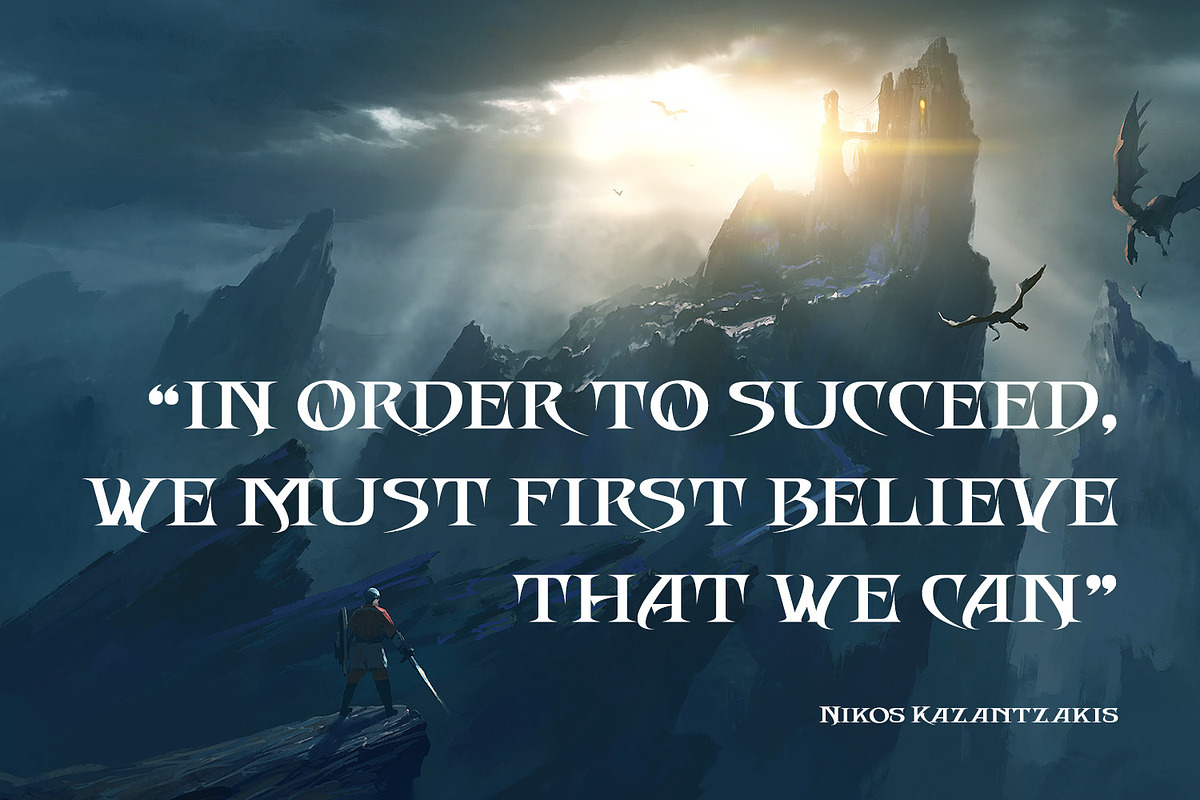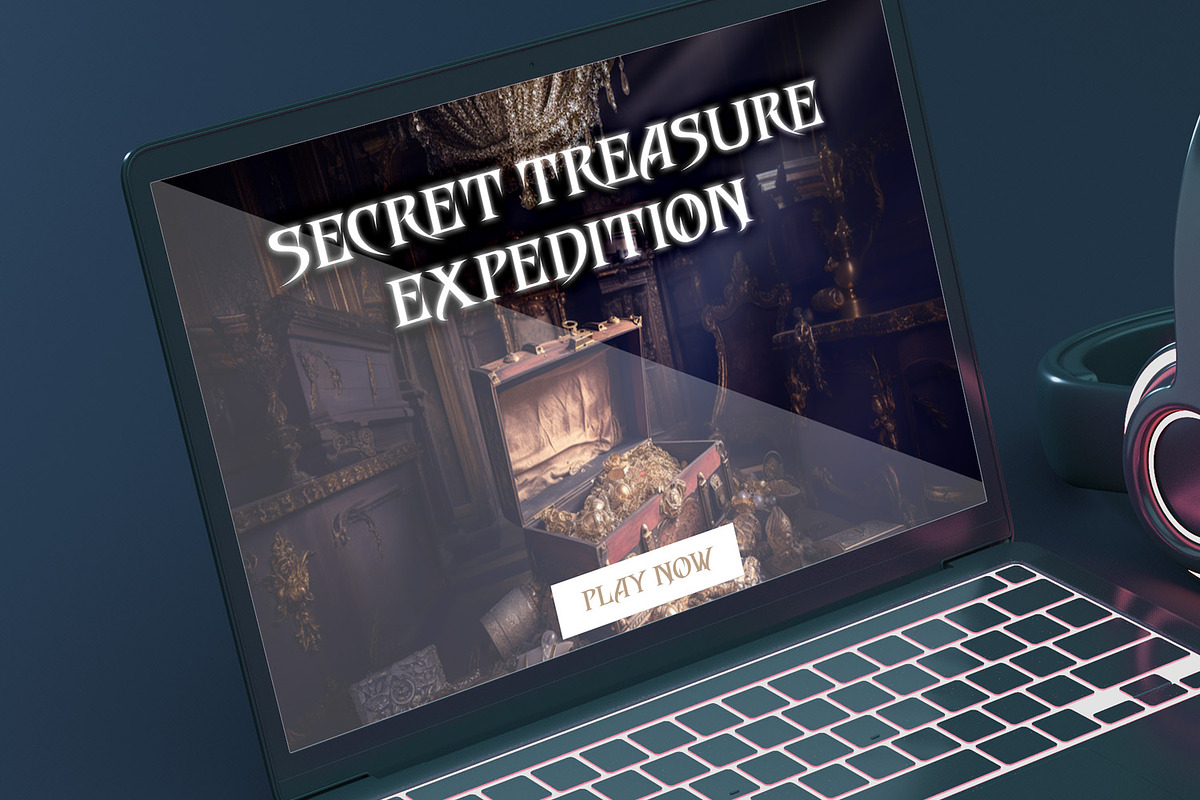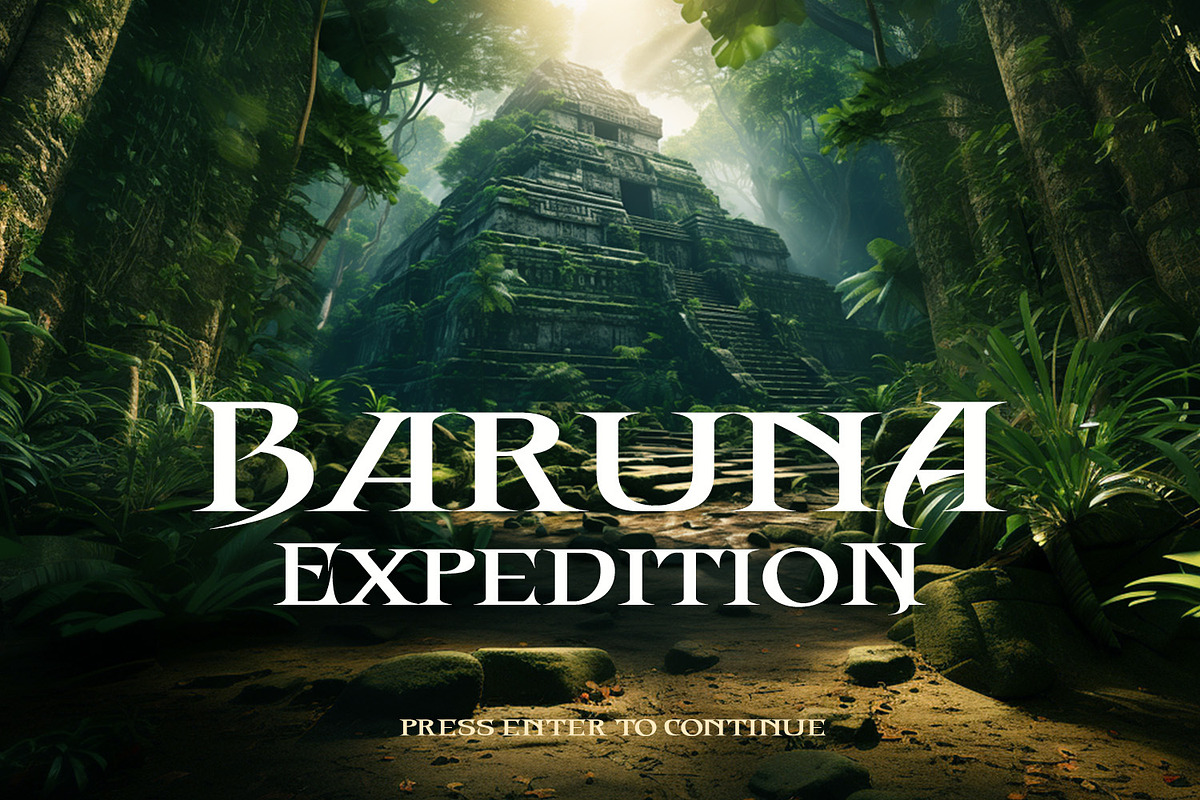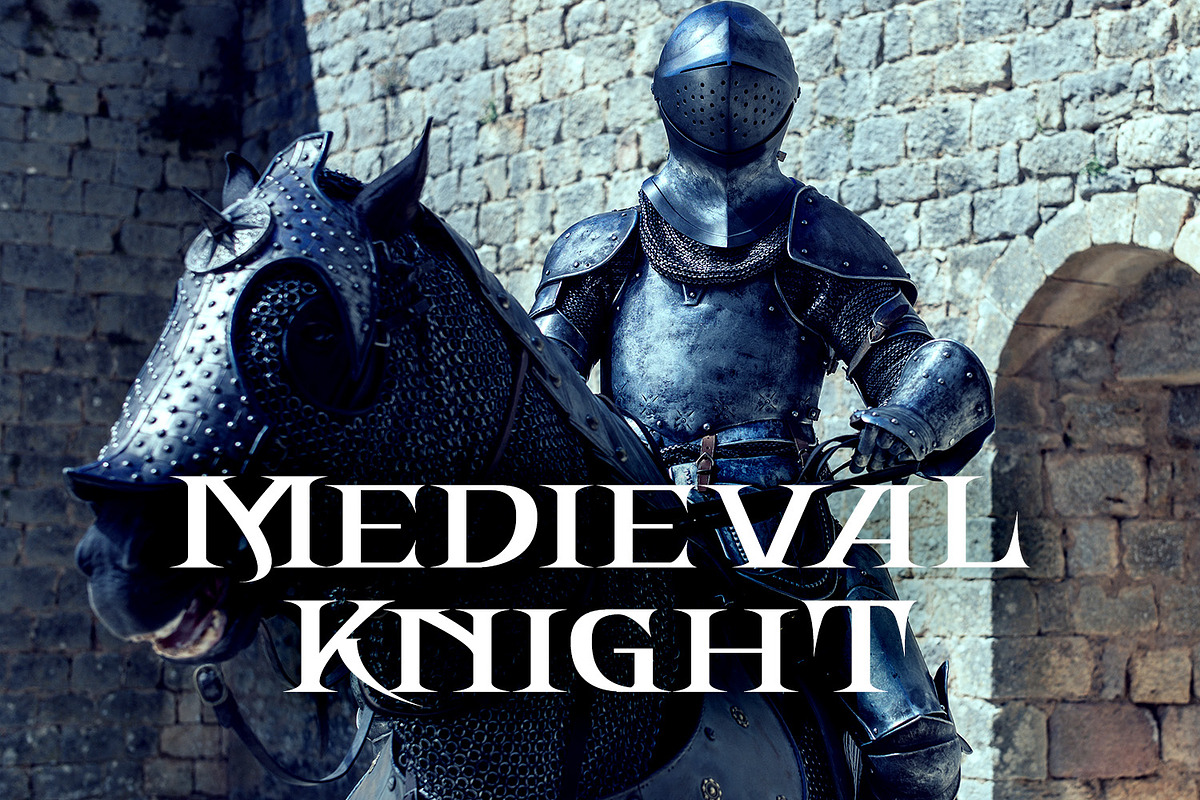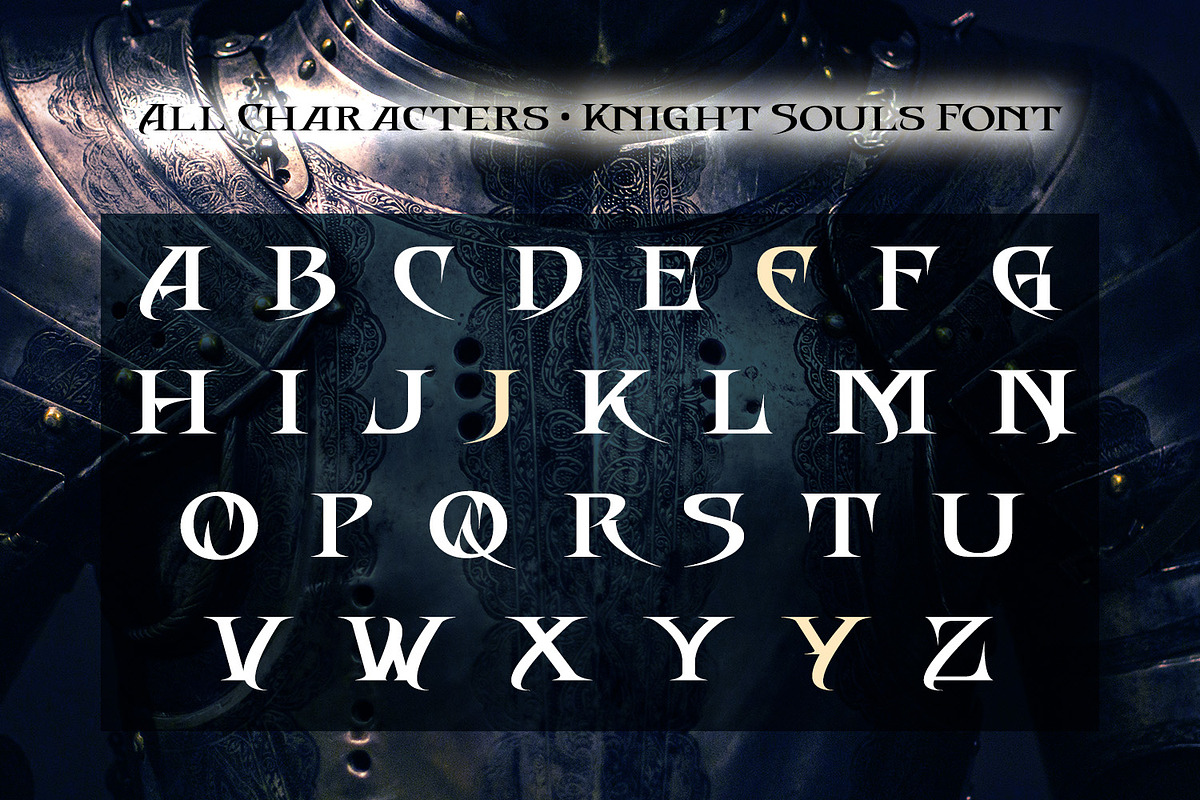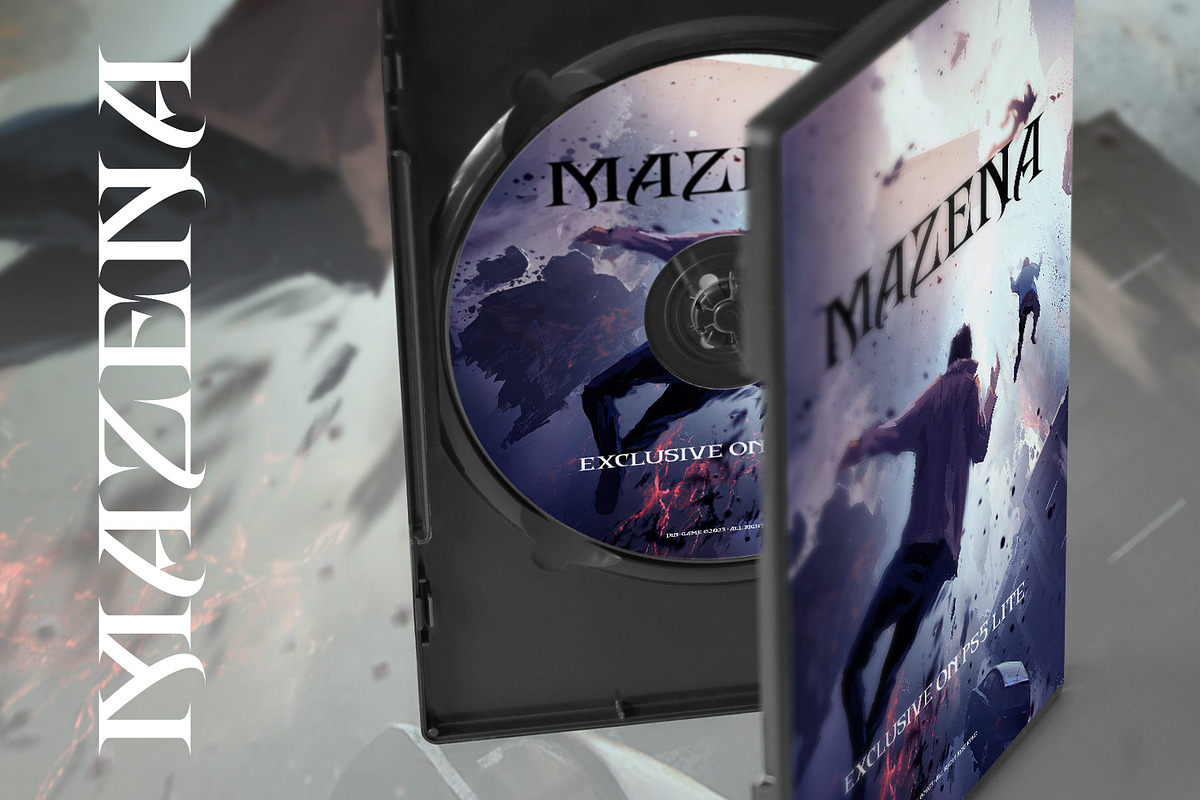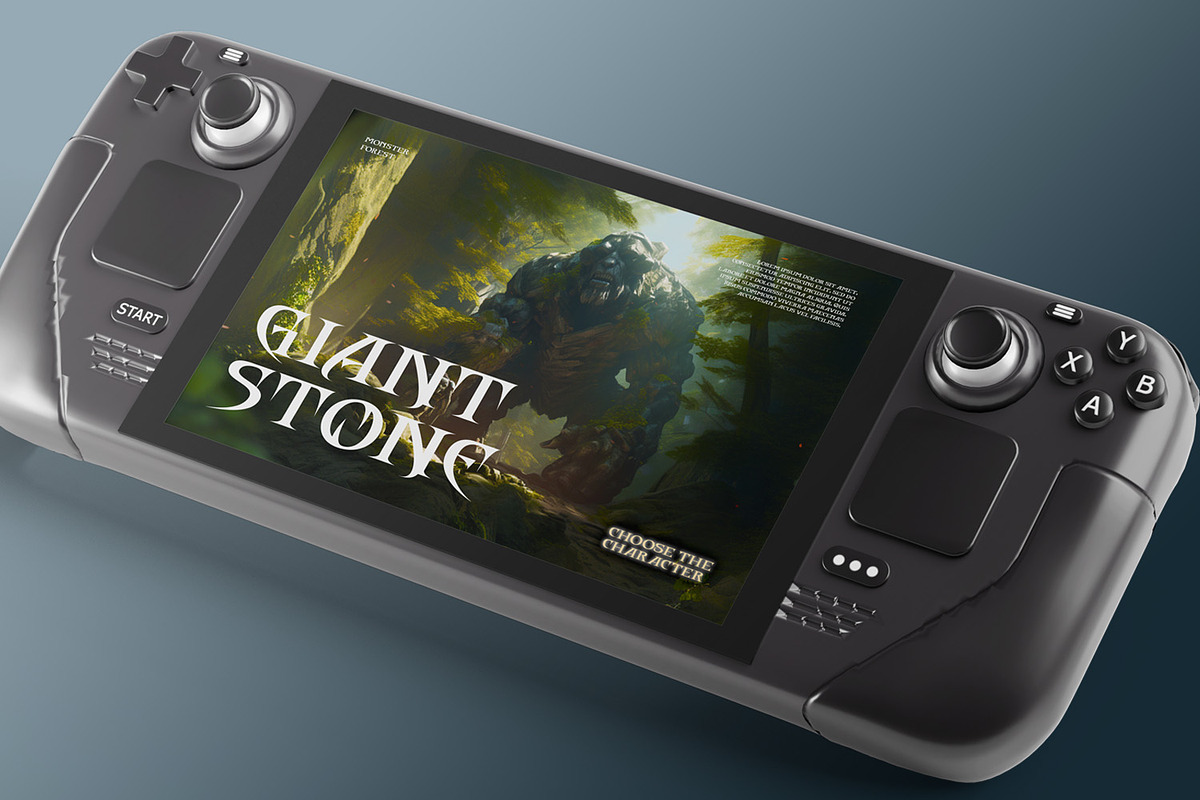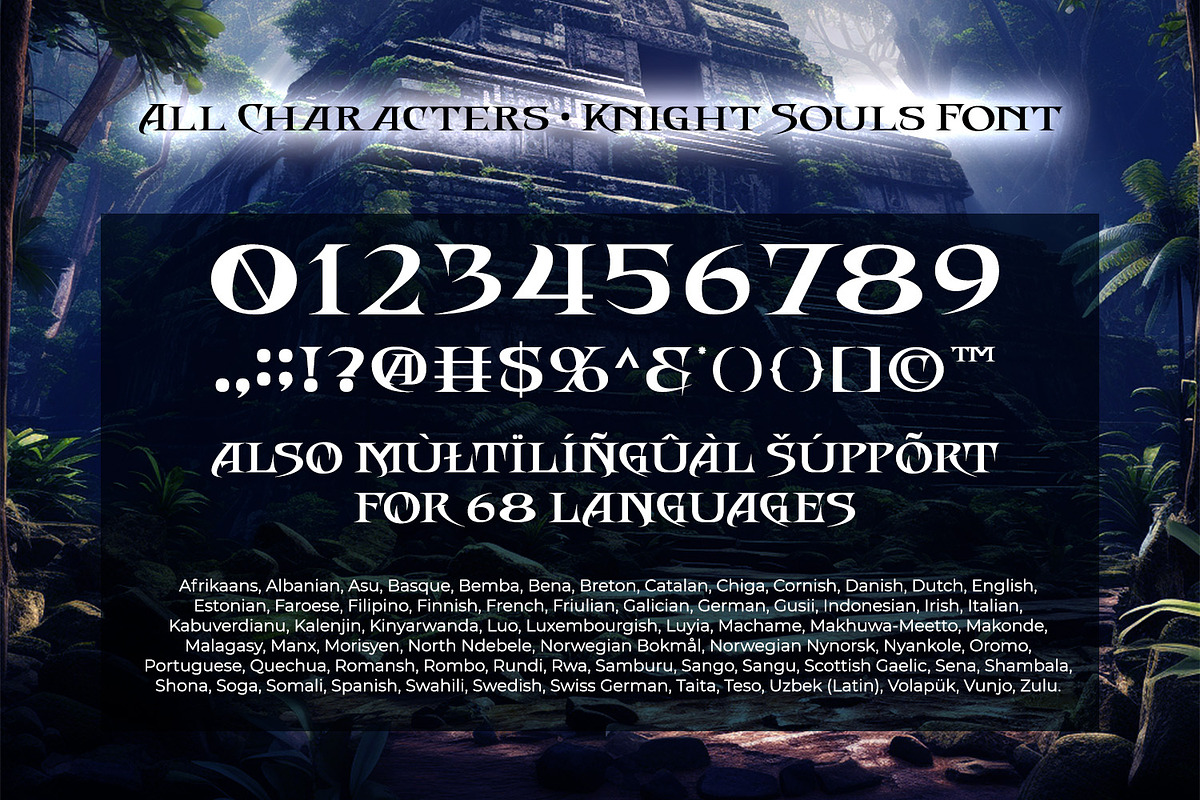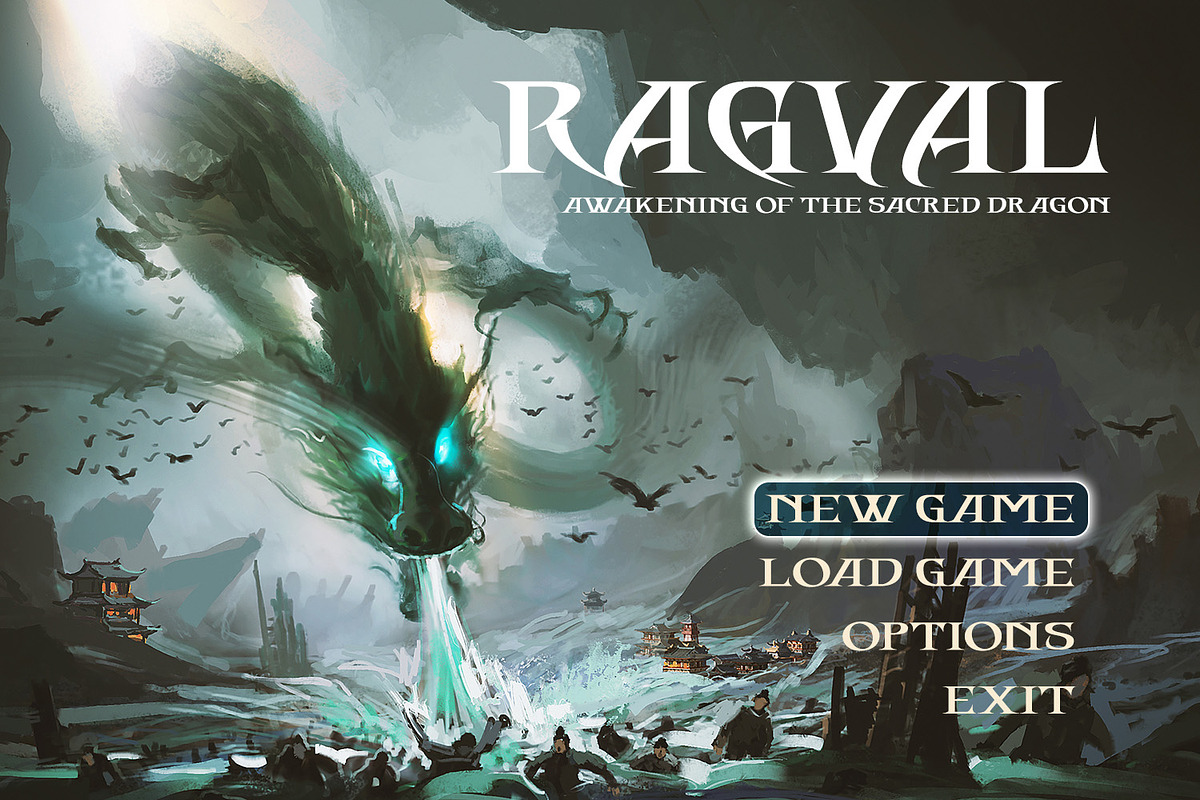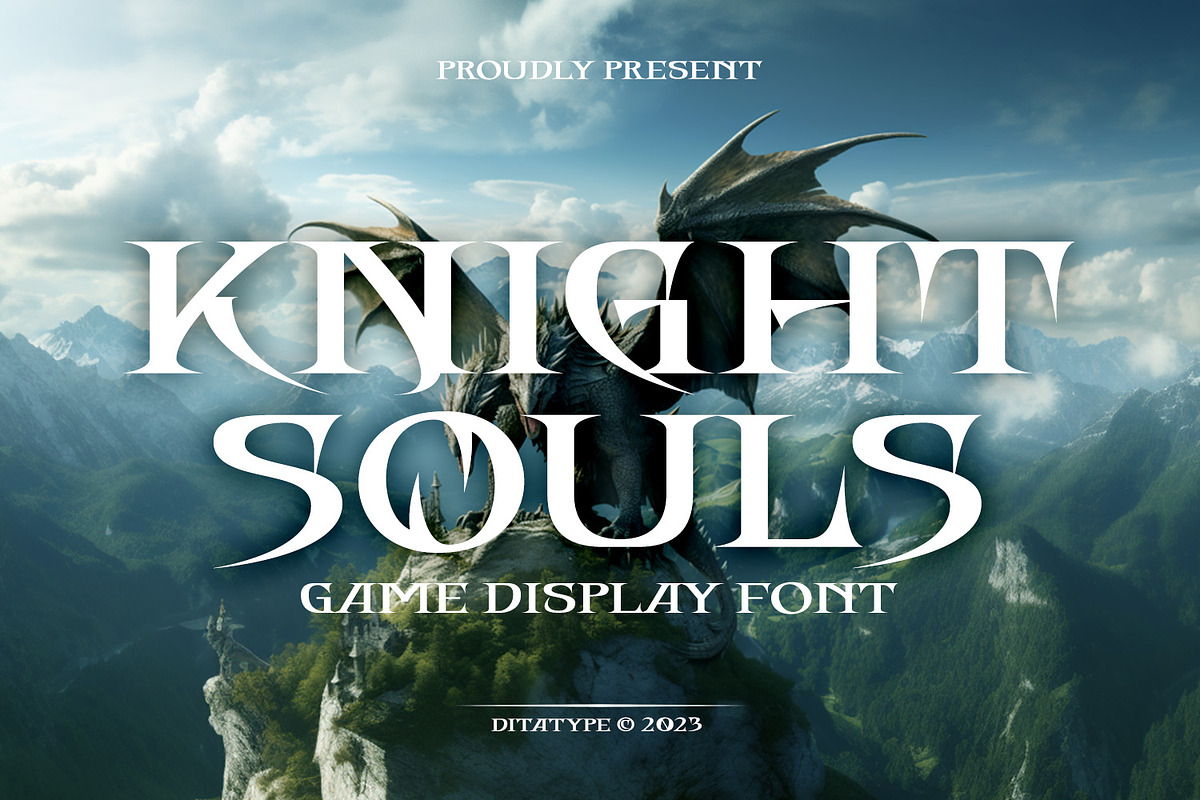
Knight Souls
Knight Souls is a captivating display font inspired by epic medieval adventures. Designed in uppercase, this typeface captures the spirit of heroic quests with its bold and commanding style. The consistent letter proportions of Knight Souls create a sense of balance and harmony throughout the font. This design choice guarantees that every character fits seamlessly together, resulting in a typographic composition that exudes strength and resilience. With sharp endings, Knight Souls adds an element of dynamism and edge to the font. Each letter is defined by precise angles and sharp corners, evoking a sense of power and determination. This feature lends a bold and assertive quality to the font, reflecting the courage and bravery of knights on epic quests. High letter contrast in Knight Souls emphasizes readability and visibility. The distinct difference between thick and thin strokes enhances the visual impact of each character, making them easily distinguishable and captivating to the eye. The high contrast design adds depth and intensity to the font, making it stand out in any game-themed design. You can also enjoy the available features here.
Knight Souls fits in headlines, logos, posters, titles, branding materials, print media, editorial layouts, website headers, and any projects that aim to transport players to a world of valor and fantasy. Find out more ways to use this font by taking a look at the font preview.